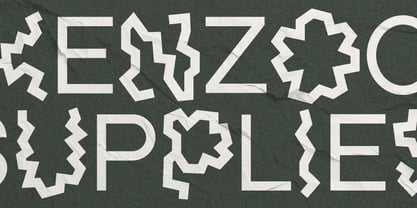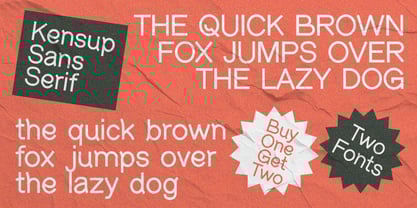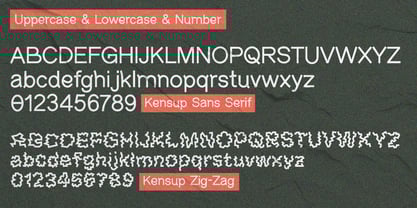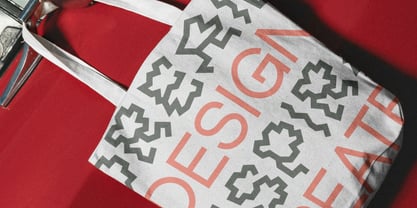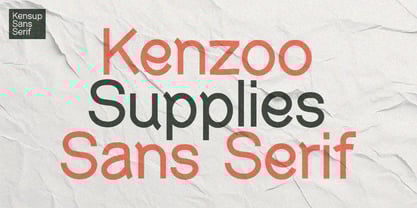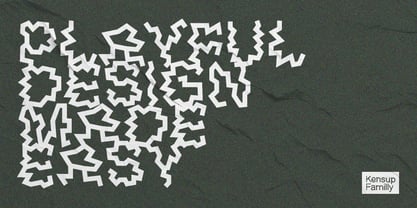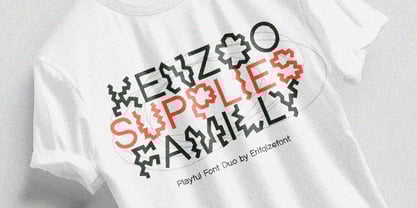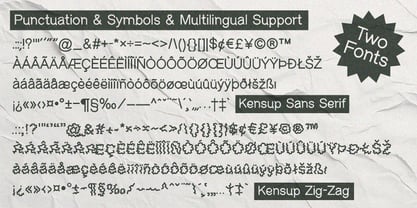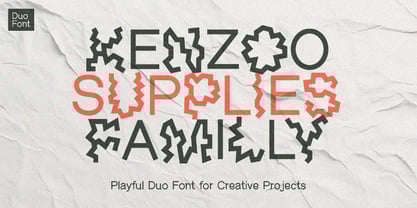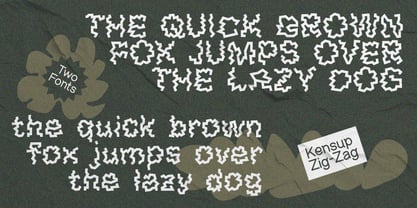
Kenzoo Supplies
by Erifqizefont
The Kenzoo Supplies Font Family was designed by Eka Rifqi Setiawan and published by Erifqizefont. Kenzoo Supplies contains 2 styles and family package options. More about this family
Kenzoo Supplies Family – Font Description
Kenzoo Supplies Family is a playful duo font that combines two unique styles in one package: a clean, modern Sans Serif and a quirky, energetic Zigzag. This versatile pair is perfect for branding, packaging, posters, apparel, and social media designs.
The font includes uppercase & lowercase letters, numbers, punctuation, and multilingual support, making it suitable for a wide range of creative projects across different languages.
If you’re looking for a typeface that balances professionalism with a fun twist, Kenzoo Supplies Family will make your designs stand out with personality.
Designers: Eka Rifqi Setiawan
Foundry: Erifqizefont